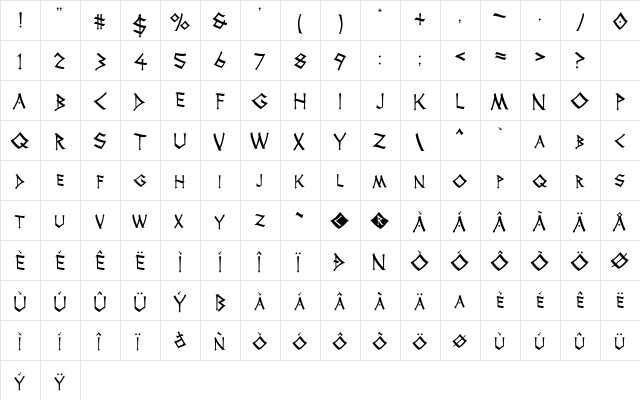
Thor Regular
Design Context for Thor Typeface
Thor is a composed and adaptable typeface that performs quietly and consistently across a wide range of design contexts.
Pro Tip: Use Thor in both headline and body roles to test its range before committing to a single application.